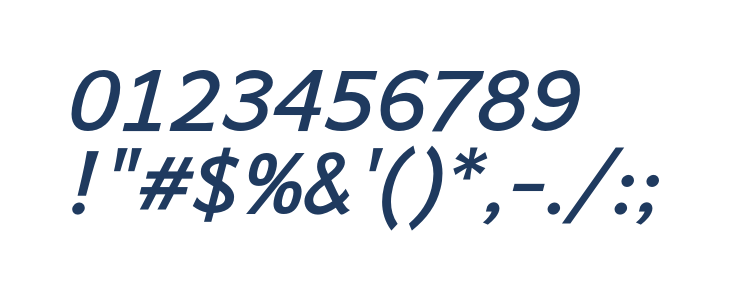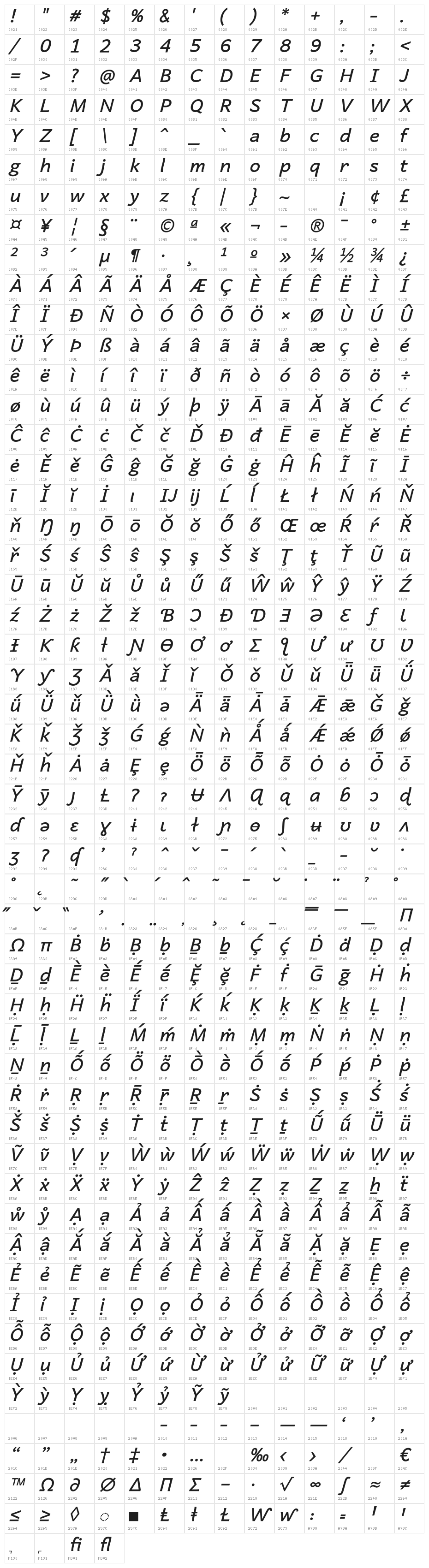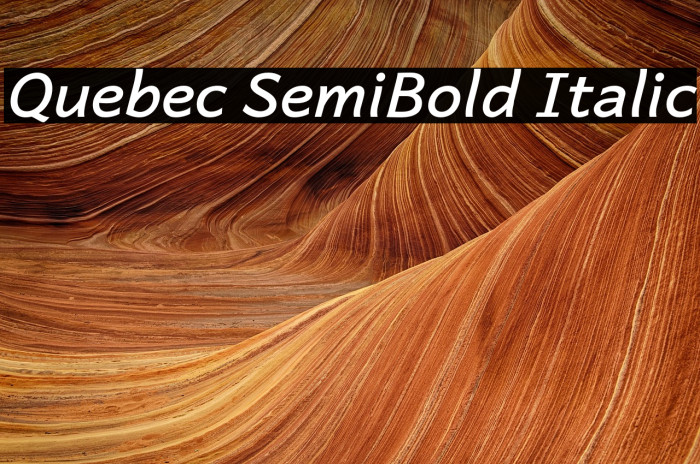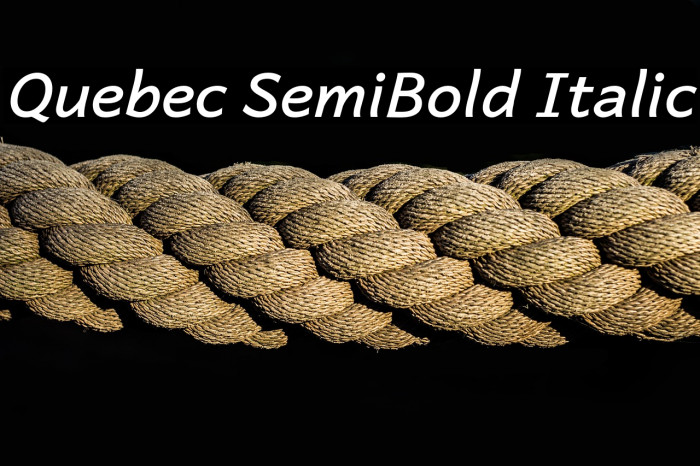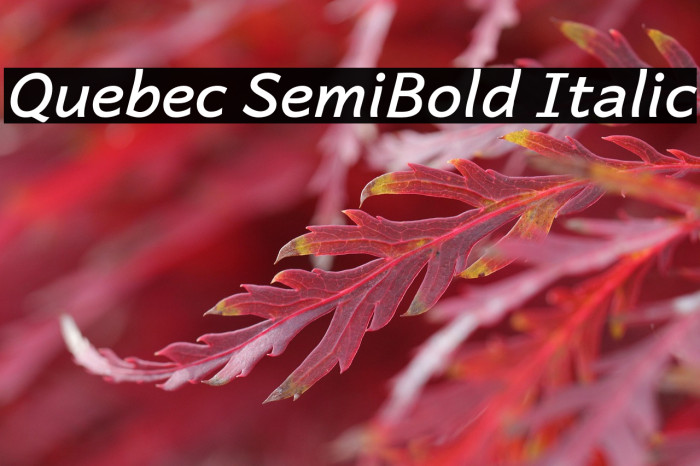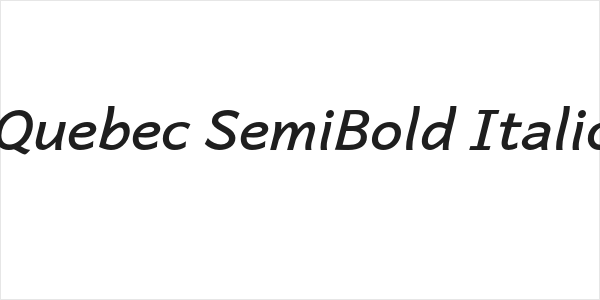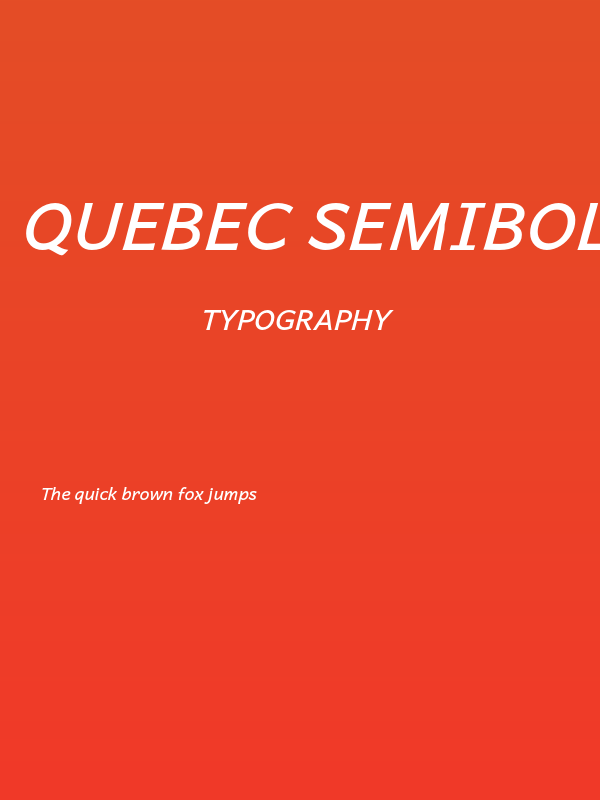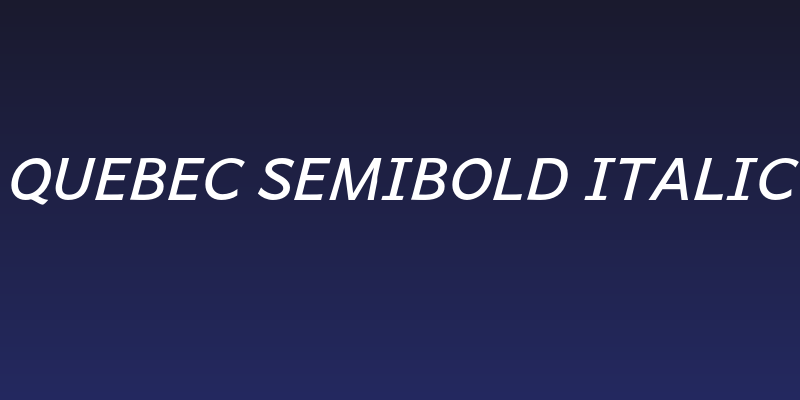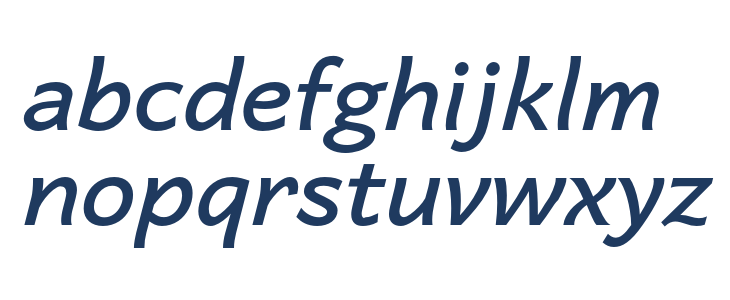
Quebec SemiBold Italic Font
Quebec SemiBold Italic Description
This font exhibits a modern and sleek design with a semi-bold weight that provides a strong presence on the page. The italic style adds a dynamic and elegant touch, making it suitable for both professional and creative applications. The characters are well-proportioned with a slight slant, enhancing readability while maintaining a stylish appearance. The font features clean lines and smooth curves, contributing to its contemporary aesthetic. It includes a full set of uppercase and lowercase letters, numerals, and a variety of special characters, ensuring versatility for different design needs.